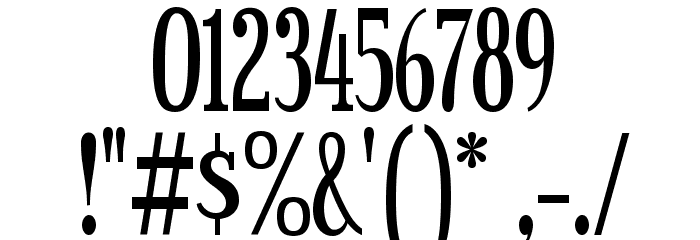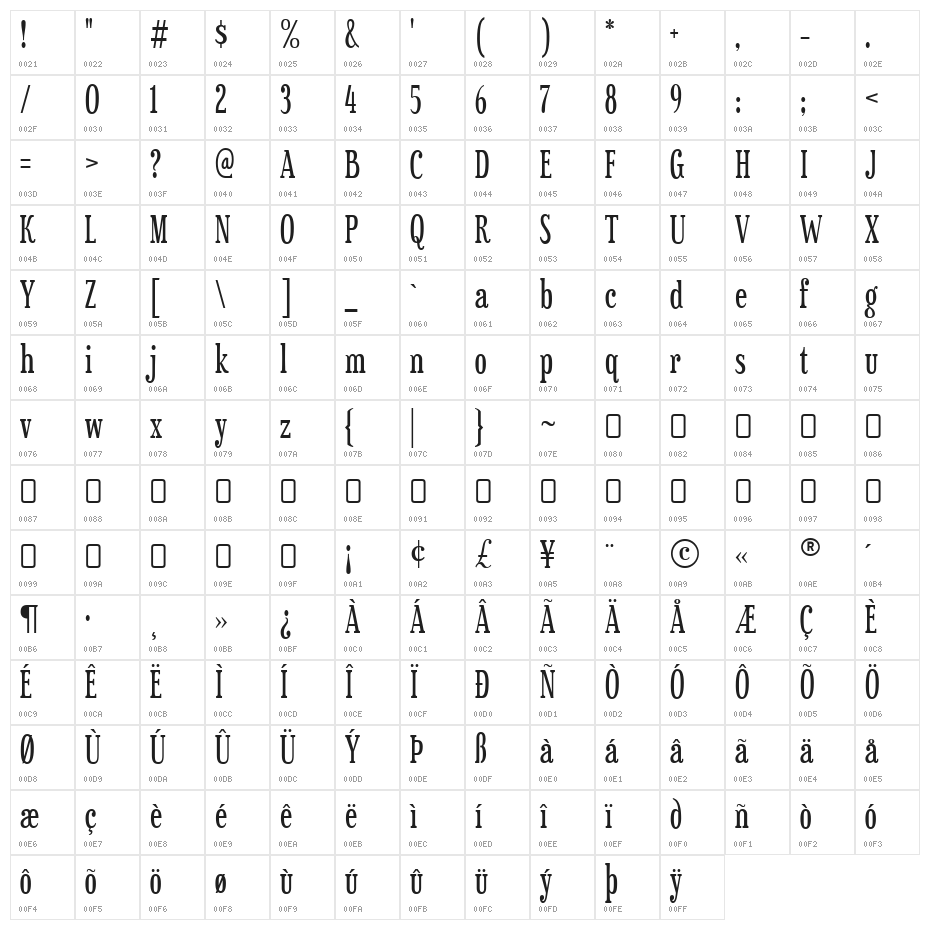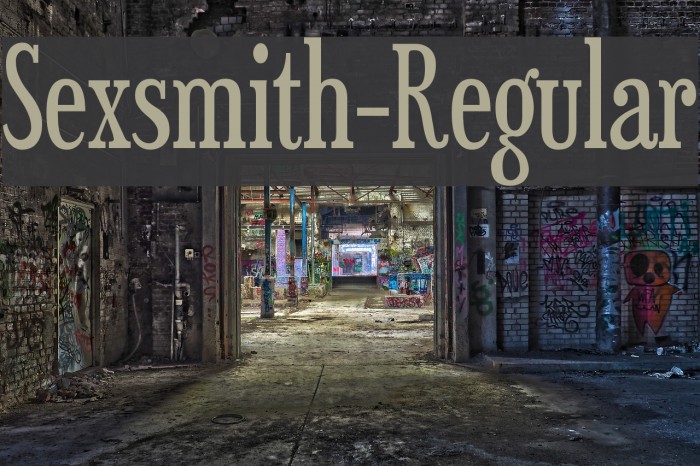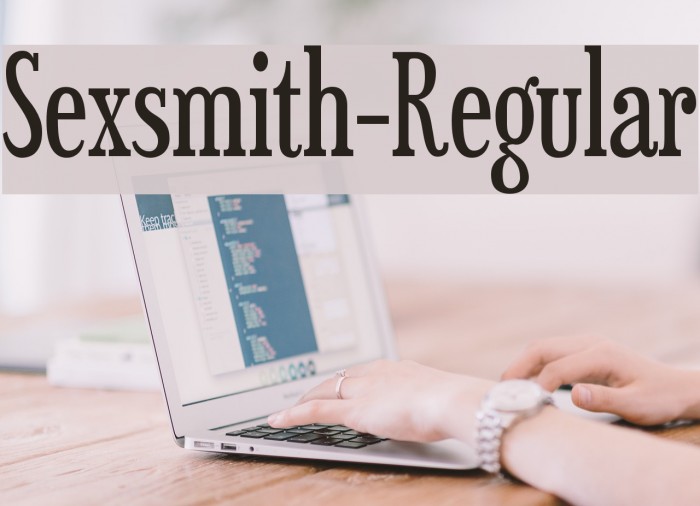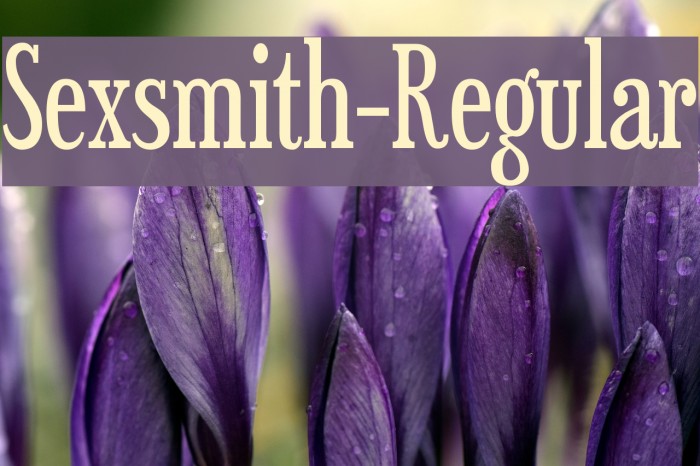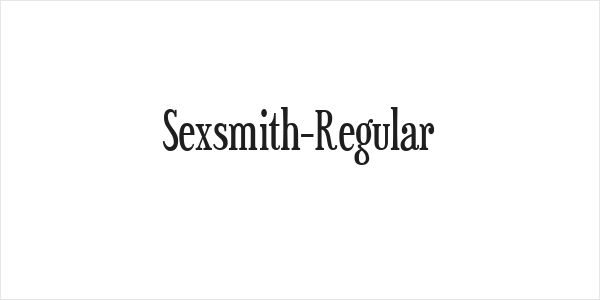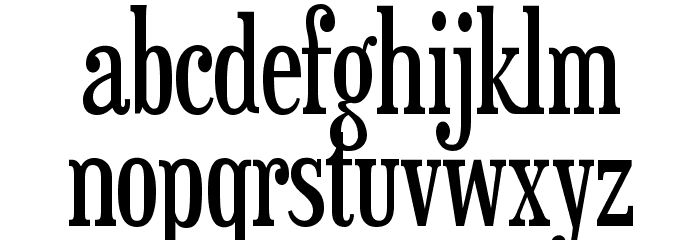
Sexsmith-Regular Font
Sexsmith-Regular Description
This font exhibits a bold and striking presence with its thick, uniform strokes and slightly condensed letterforms. The serifs are pronounced, adding a touch of elegance and traditional appeal. The uppercase letters are tall and commanding, while the lowercase letters maintain a consistent height, ensuring readability. The numerals are clear and well-defined, making them suitable for various applications. Special characters are distinct and harmonize well with the overall design, enhancing the font's versatility. This font is ideal for projects that require a strong, authoritative look, such as headlines, posters, and branding materials.
| Proposed Projects | Ideal for headlines, posters, branding, and any project requiring a strong, authoritative look. |